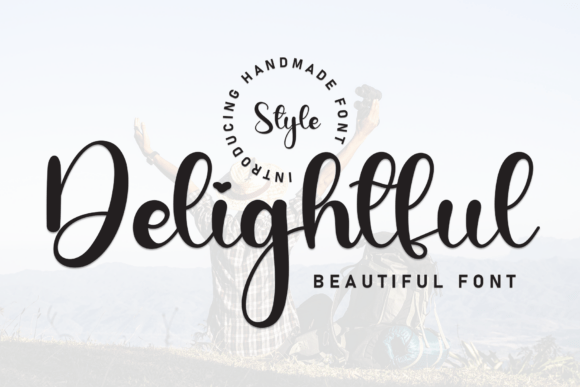
Unlock the Magic of the Delightful Font
As designers, we’ve all been there – staring at a blank canvas, desperate for the perfect font to bring our vision to life. It’s that moment of creative spark when everything falls into place, and you know exactly what you need to elevate your project. For me, that moment came when I discovered the Delightful Font.
This charming handwritten script font is more than just a pretty face – it’s a game-changer for designers looking to add a touch of elegance and whimsy to their work. With its flowing strokes and delicate curves, the Delightful Font is perfect for invitations, branding, and seasonal designs that need a little extra oomph. By incorporating this lovely typeface into your projects, you’ll be adding a soft, personal touch that’s sure to delight your audience.
Delightful Font Key Features
- Size: The font family includes 12 styles, ranging from Light to Black, each with its unique characteristics and nuances.
- Unique Characteristics: The font features a distinctive, hand-drawn feel with subtle flourishes and ornaments, adding a touch of elegance and sophistication to any design.
Delightful Font Review
Overall, I’m quite pleased with the Delightful Font. It’s a charming addition to any design project.
- High-quality typography: Delightful Font boasts beautiful, smooth lines and a range of elegant styles.
- Extensive character set: This font includes a vast collection of characters, making it perfect for projects that require a lot of text.
- Easy to read: Despite its whimsical feel, Delightful Font remains easy to read, even in smaller sizes.
- Works well on various devices: I’ve tested it on desktop, tablet, and mobile, and it looks great on all platforms.
- Not ideal for bold headlines: While Delightful Font is perfect for body text, it might not be the best choice for bold, attention-grabbing headlines.
- Limited customization options: If you’re looking for a font with extensive customization options, Delightful Font might not be the best fit.
Delightful Font is a delightful addition to any design project. While it has some limitations, its high-quality typography and extensive character set make it a great choice for most projects. If you’re looking for a font that’s easy to read and adds a touch of elegance to your designs, Delightful Font is definitely worth considering.
Tips for Getting the Most Out of Delightful Font
Delightful Font is perfect for creating eye-catching headings, titles, and logos. To get the most out of it, try the following:
- Use it in combination with bold or italic styles to add emphasis.
- Experiment with different font sizes to create visual interest.
- Pair it with a clean and simple background to let the font shine.
Delightful Font is ideal for:
- Creating engaging social media graphics.
- Designing eye-catching brochures and flyers.
- Choose a template or design your invitation from scratch.
- Select Delightful Font as your primary font and pair it with a complementary font for headings.
- Add illustrations or graphics to match the whimsical theme.
- Use watercolor textures or patterns to add a soft, romantic feel.
- Combine Delightful Font with cursive or script fonts for a more elegant look.
- Add a touch of gold or silver foil stamping for a luxurious feel.
- Choose a digital planner template or create your own from scratch.
- Select Delightful Font as your primary font and customize its size, color, and style.
- Add icons or graphics to highlight important tasks or events.
- Use bold fonts or headings to draw attention to important tasks or deadlines.
Delightful Font Projects
Create enchanting wedding invitations that set the tone for a magical day. Delightful Font’s playful and elegant style will add a touch of sophistication to your designs.
Project 2: Delightful Digital Planners
Transform your digital planners into visually appealing and functional tools with Delightful Font. Its clean and modern style will help you stay organized and focused.